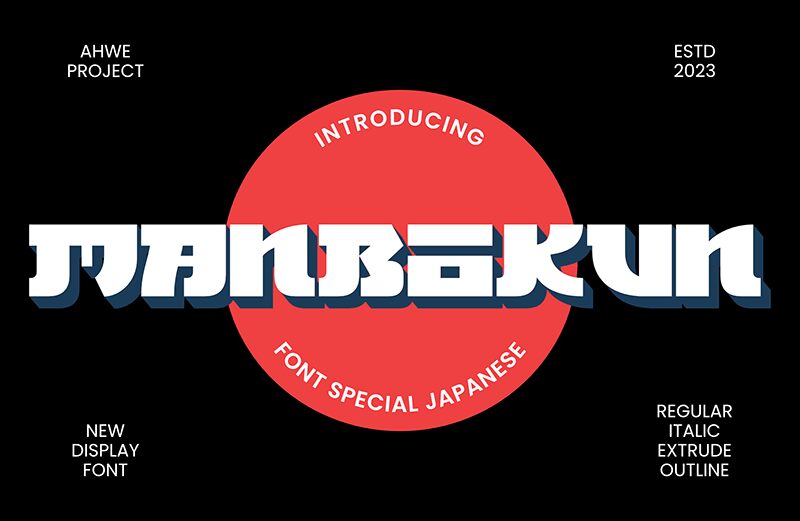
Manbokun font by Ahweproject is a bold Japanese writing style free font that steals the eye with its every letter. The expanded geometric font features modern and minimalistic characters whose shape remains true to authentic Asian hand-lettering. Each letter had been influenced by the handwriting of Asian calligraphy artists, yet slight touches of technological symmetry are integrated into their overall look and size.
Manbokun is suitable for creative design projects in which you want to mimic ancient text from the past, or create futuristic paradoxes from the future! It will look great in signage texts, branding projects, product packaging, social media posts, merchandise designs, magazines covers & headlines and more!